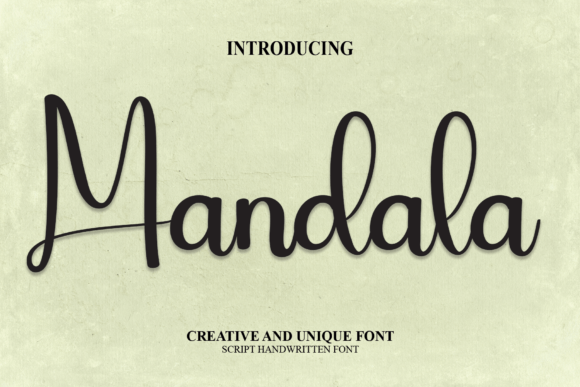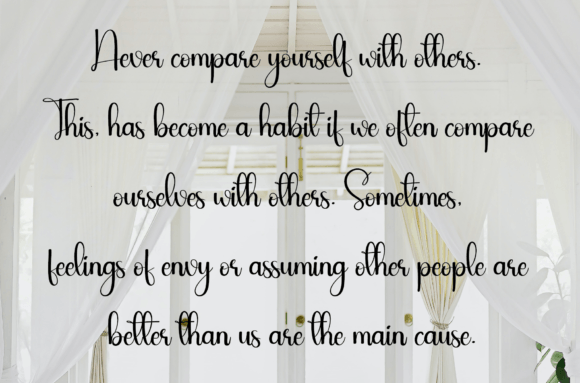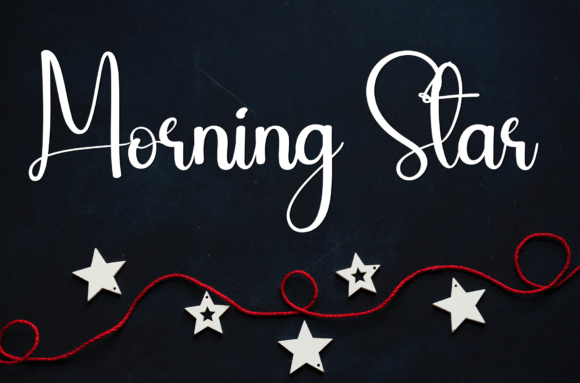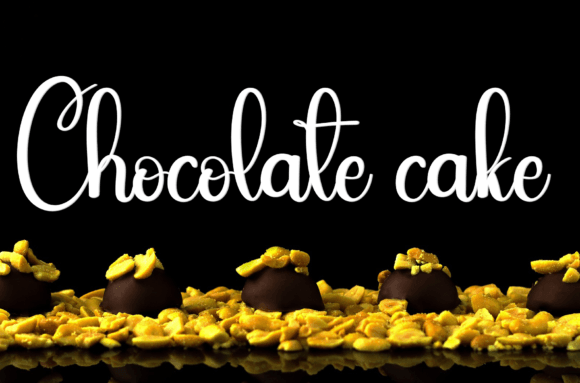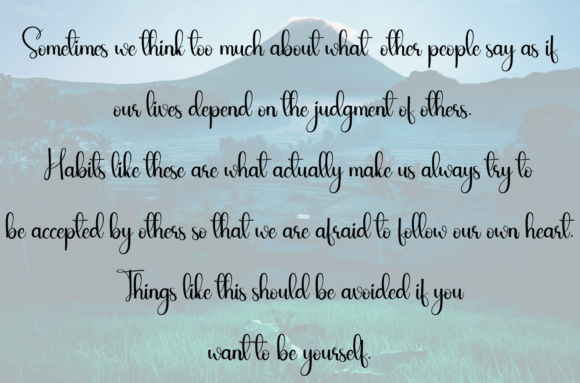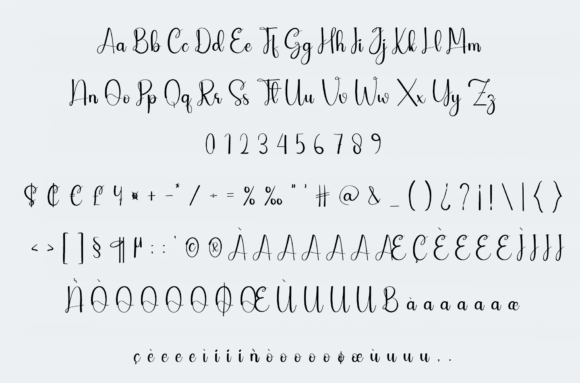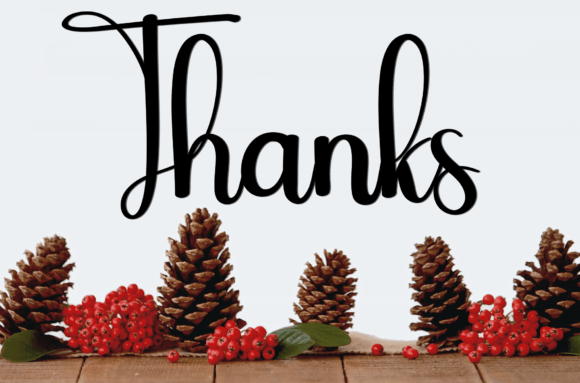
Mandala Font
About Mandala Font: A Fun and Friendly Handwritten Typeface
Mandala font offers a lively and approachable handwritten style that brings warmth and charm to your creative projects. Its playful yet clear design makes it suitable for various applications. Whether you’re working on crafts, digital design, presentations, or greeting cards, Mandala font can quickly become your favorite choice.
Perfect for Craft Projects
Mandalafont adds a personal, handmade touch to craft projects. Its cheerful and legible letters make it ideal for scrapbooks, DIY cards, and other creative crafts. This font helps express warmth and friendliness in every stroke.
Ideal for Digital Design and Presentations
In digital design and presentations, Mandalafont delivers a fun and engaging vibe. It strikes the perfect balance between professionalism and friendliness, making your graphics, slides, and social media content more appealing and relatable.
Great for Greeting Cards and Invitations
Mandalafont excels in greeting cards and invitations. Its soft and playful strokes create an inviting atmosphere, making messages for holidays, birthdays, and special events more heartfelt and memorable.
Why Choose Mandala Font?
With its blend of fun and friendliness, Mandalafont is a versatile choice for many design projects. It ensures readability while adding a unique charm, making it a valuable addition to your design toolkit.